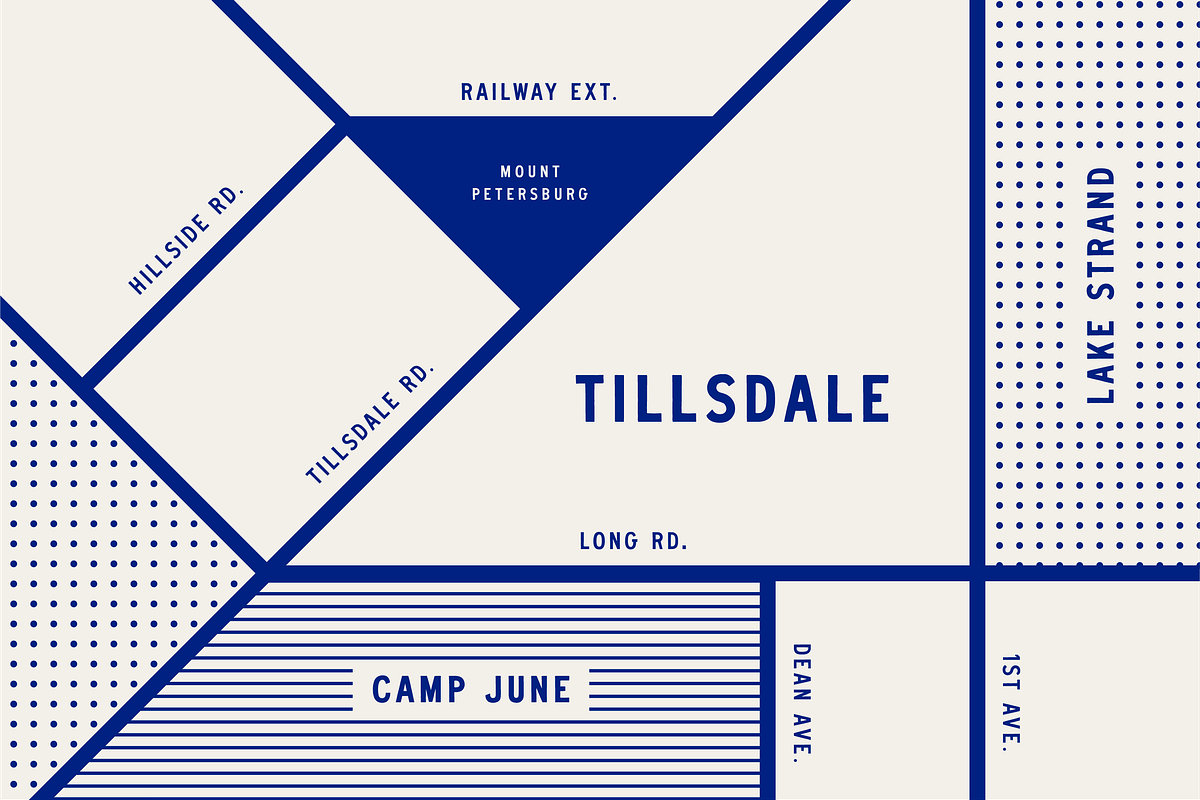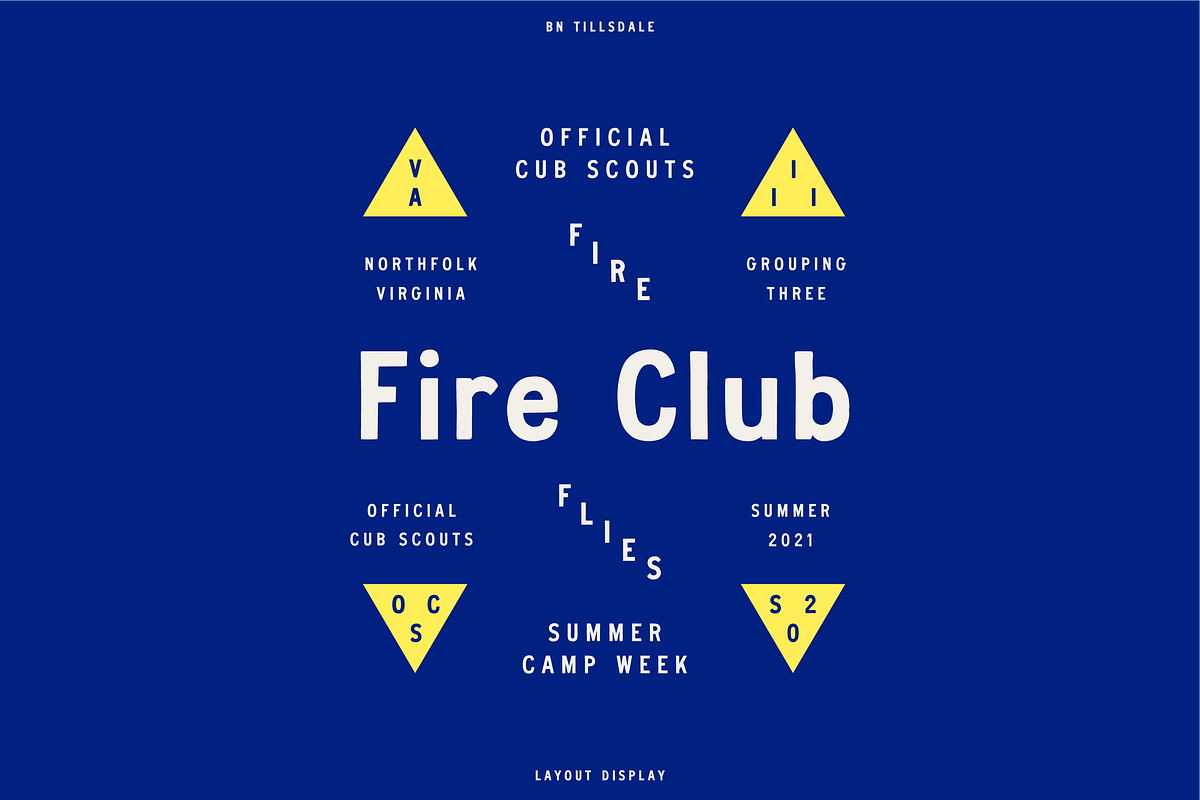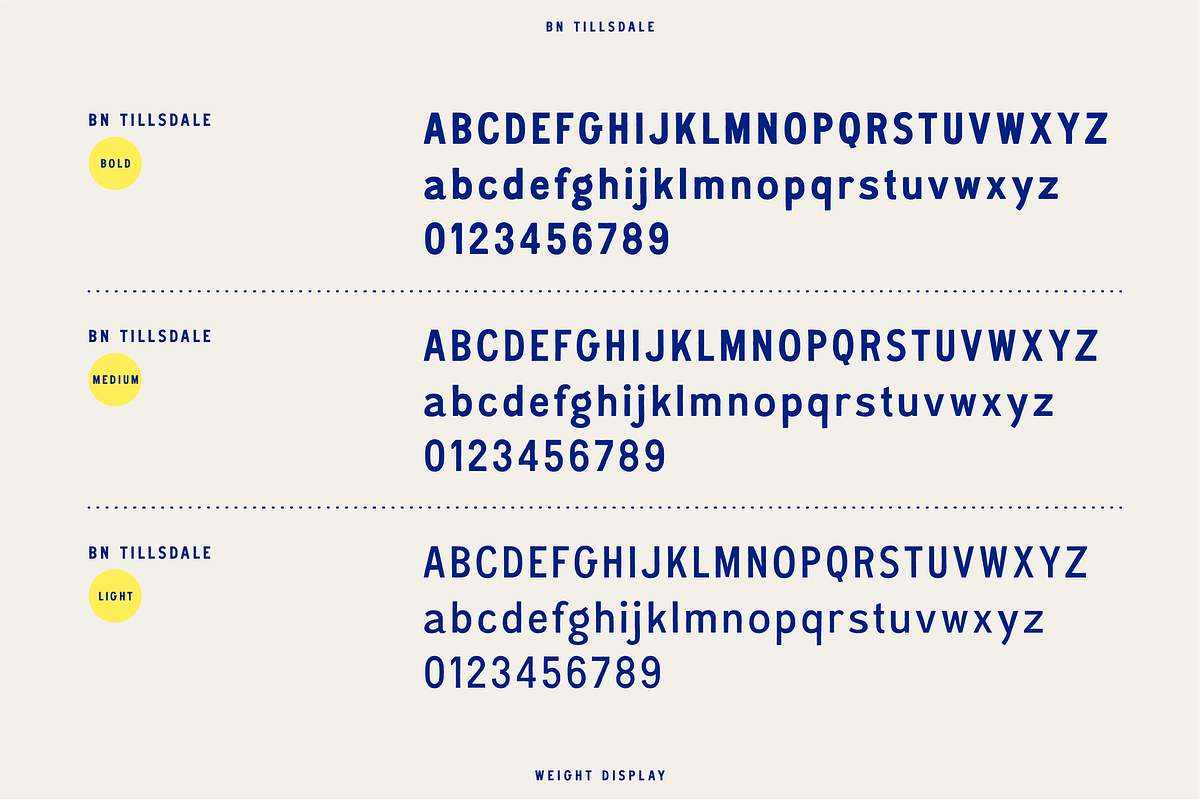
BN Tillsdale is a hand-drawn sans serif typeface that comes in 3 weights! Using a well-balanced semi-condensed form and attention to detail, BN Tillsdale is perfect for almost all aspects of graphic design, from creating a unique display layout, a quirky logo design and even long-form content.